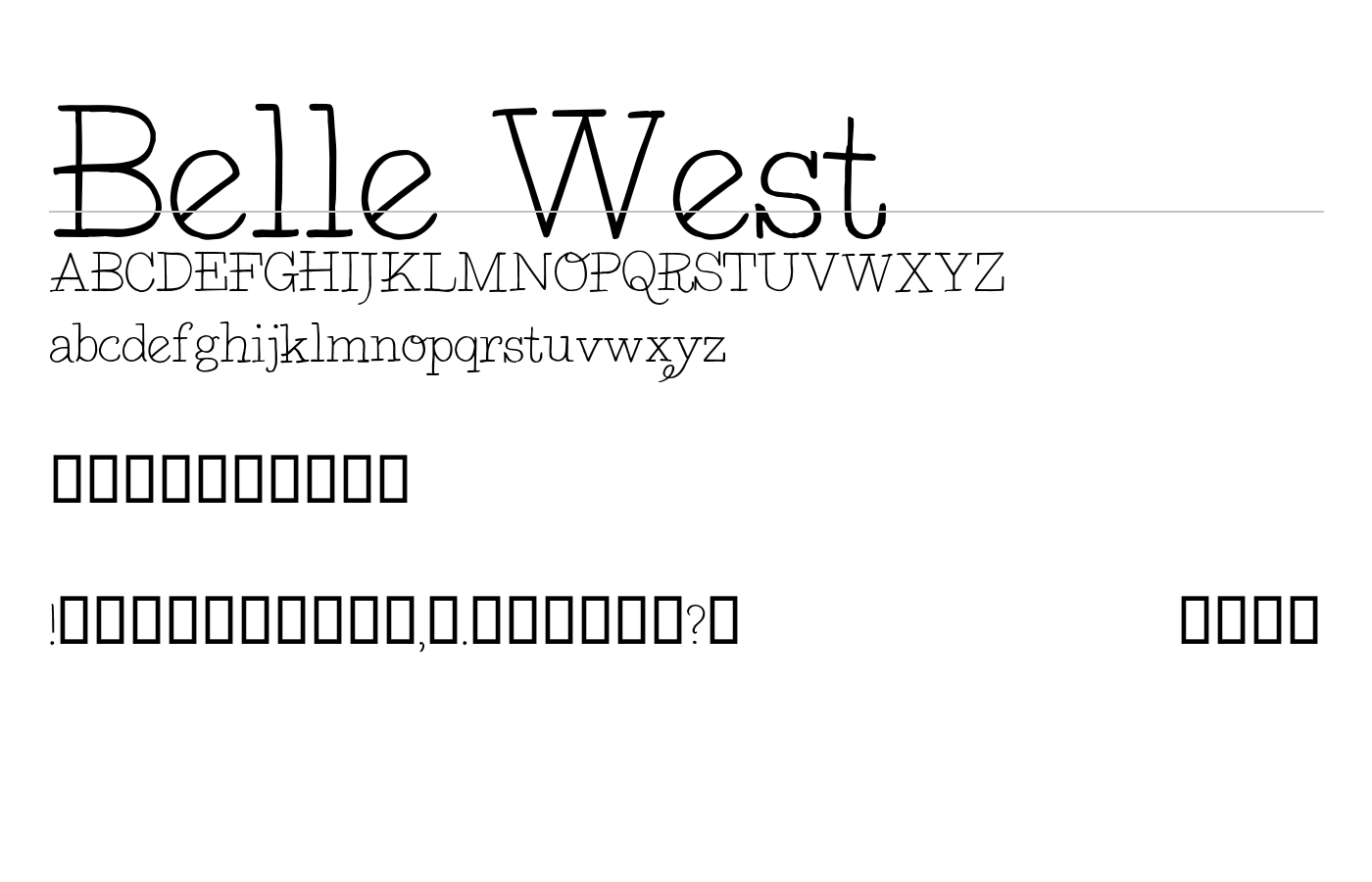
Belle West is a delicate, whimsical serif font characterized by its thin, slightly uneven strokes and playful letter shapes that evoke a hand-drawn feel. Its tall x-height, single-story 'a' and 'g', and quirky details create a charming, informal personality perfect for boutique branding, creative projects, and editorial designs seeking a gentle, artistic touch. This font works best in headlines and titles where its unique style can shine without compromising readability.
Belle West Font
About Belle West Font
| Designer | =^_^= |